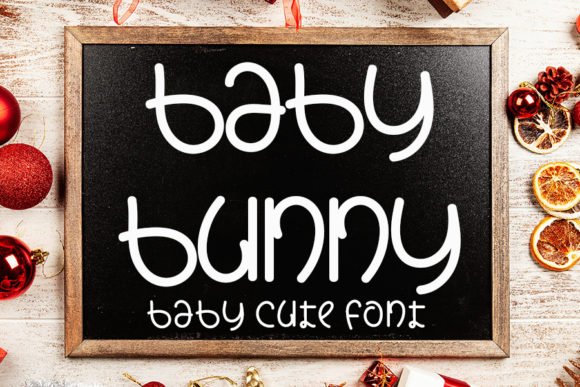
The Joy of Typography: Introducing Baby Bunny Font
Remember the excitement of receiving a handwritten birthday card from a child? The scribbled drawing, the uneven handwriting, and the infectious joy it brings to the recipient? That’s the magic of Baby Bunny Font – a cute and quirky display font designed to add an incredibly joyful touch to your designs.
Baby Bunny Font is more than just a font; it’s a way to infuse your creative ideas with whimsy and playfulness. Whether you’re designing a children’s book, a greeting card, or a social media post, this beautiful display font will make your design stand out from the crowd.
For designers, Baby Bunny Font is a valuable addition to their toolkit, offering a unique and eye-catching way to express their creativity and bring a smile to their audience’s faces.
Baby Bunny Font Key Features
- Font Style: A cute and playful, handwritten font designed for children’s products and family-friendly brands.
- Character Count: 250+ characters, including uppercase and lowercase letters, numbers, and special symbols.
- Unique Characteristics: The font features irregular strokes, playful flourishes, and a whimsical feel, making it perfect for creating a child-friendly atmosphere.
Design Review: Baby Bunny Font
Overall, I think the Baby Bunny Font has a certain charm to it. It’s perfect for creating a whimsical and playful atmosphere in your designs. The font is full of character and adds a touch of warmth and friendliness.
Here are some things that work well in the Baby Bunny Font:
- ✨ Unique and playful letterforms that add a touch of personality to your designs.
- ✨ Excellent for use in children’s materials, party invitations, or any design that needs a youthful vibe.
- ✨ The font is well-suited for short paragraphs or titles, where its whimsical nature can shine.
- ⚠️ The font can be difficult to read in long blocks of text due to its playful, cursive nature.
- ⚠️ It may not be the best choice for formal or professional designs, where a more serious tone is required.
- ⚠️ The font’s whimsy can be overwhelming in some designs, so it’s essential to use it thoughtfully and in moderation.
In conclusion, the Baby Bunny Font is a delightful addition to any designer’s toolkit, but it should be used with caution and consideration for the project’s tone and requirements.
The Baby Bunny Font is perfect for:
- Children’s books and educational materials
- Cartoon-style graphics and illustrations
For the best results, use the Baby Bunny Font in conjunction with bright and playful colors and illustrations.